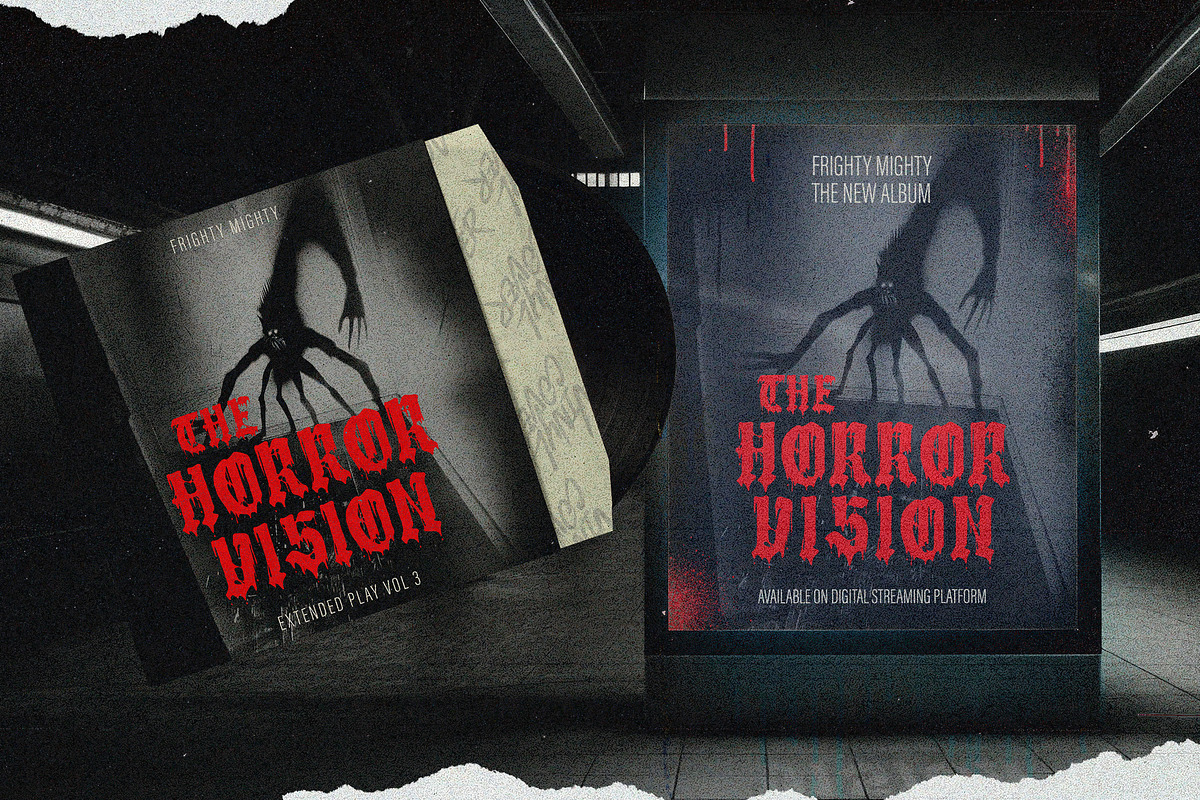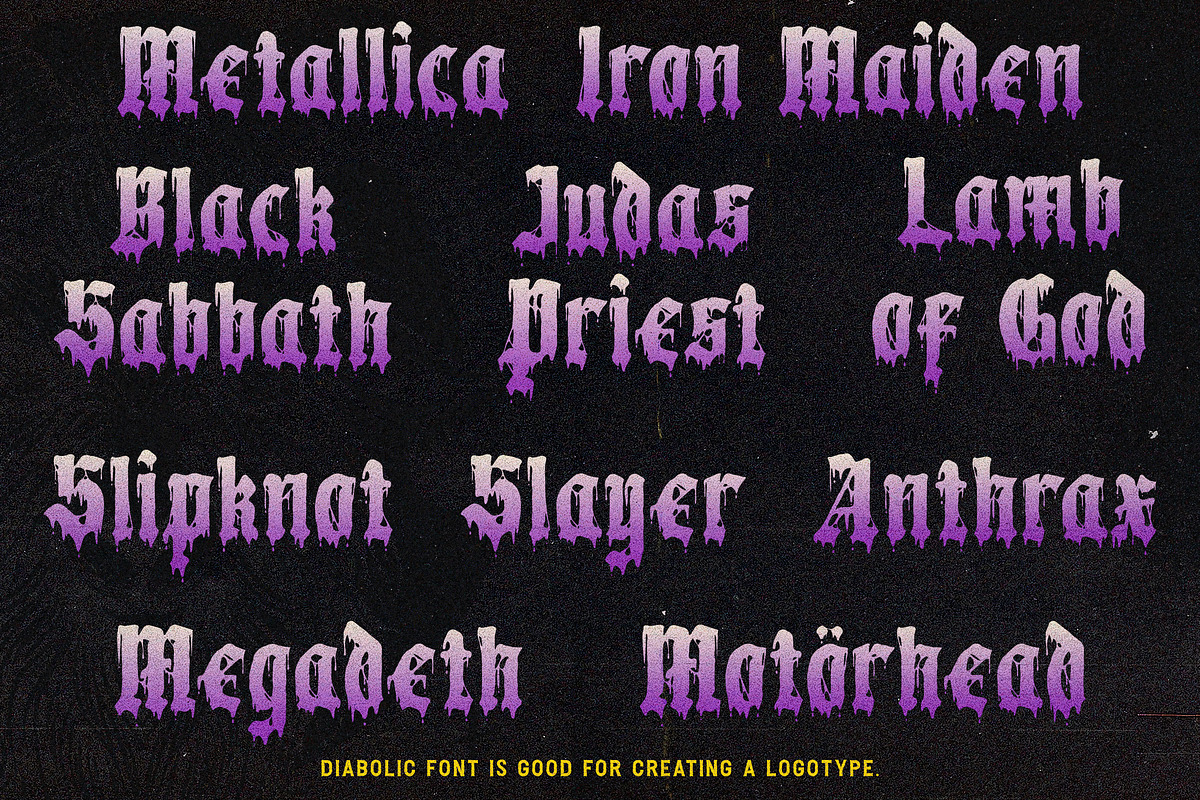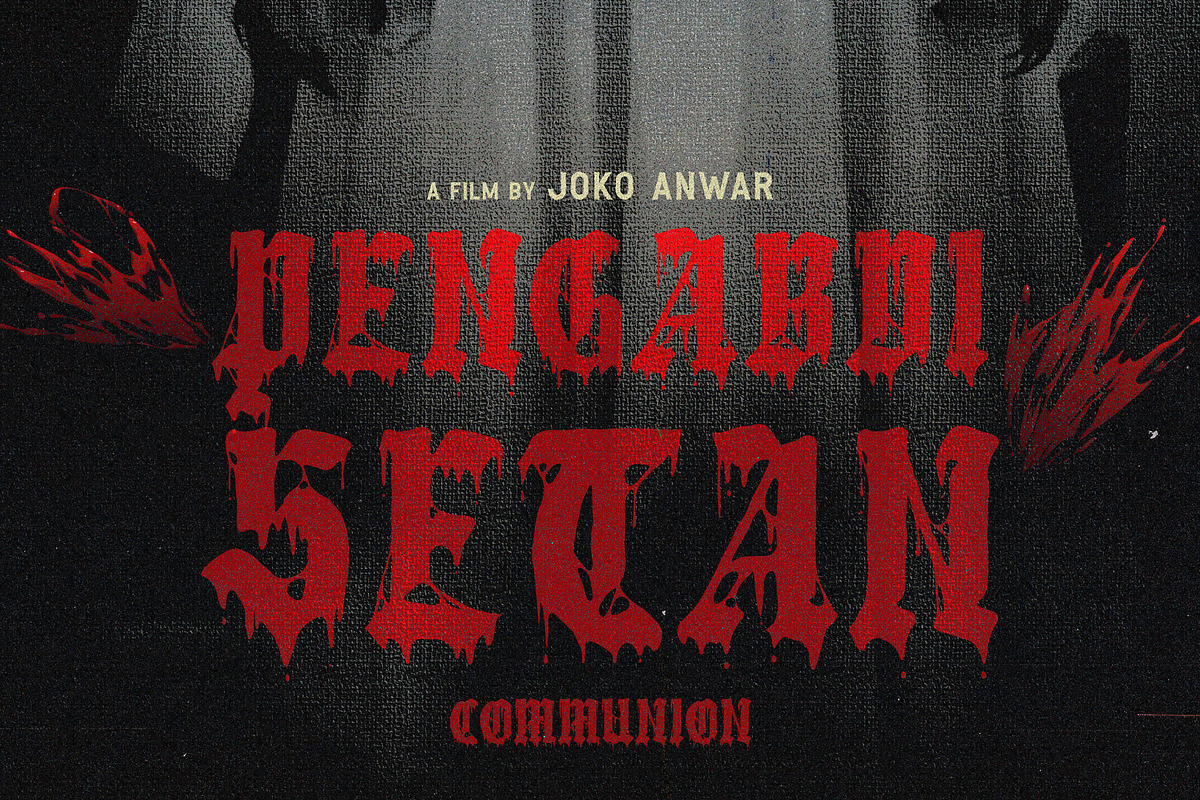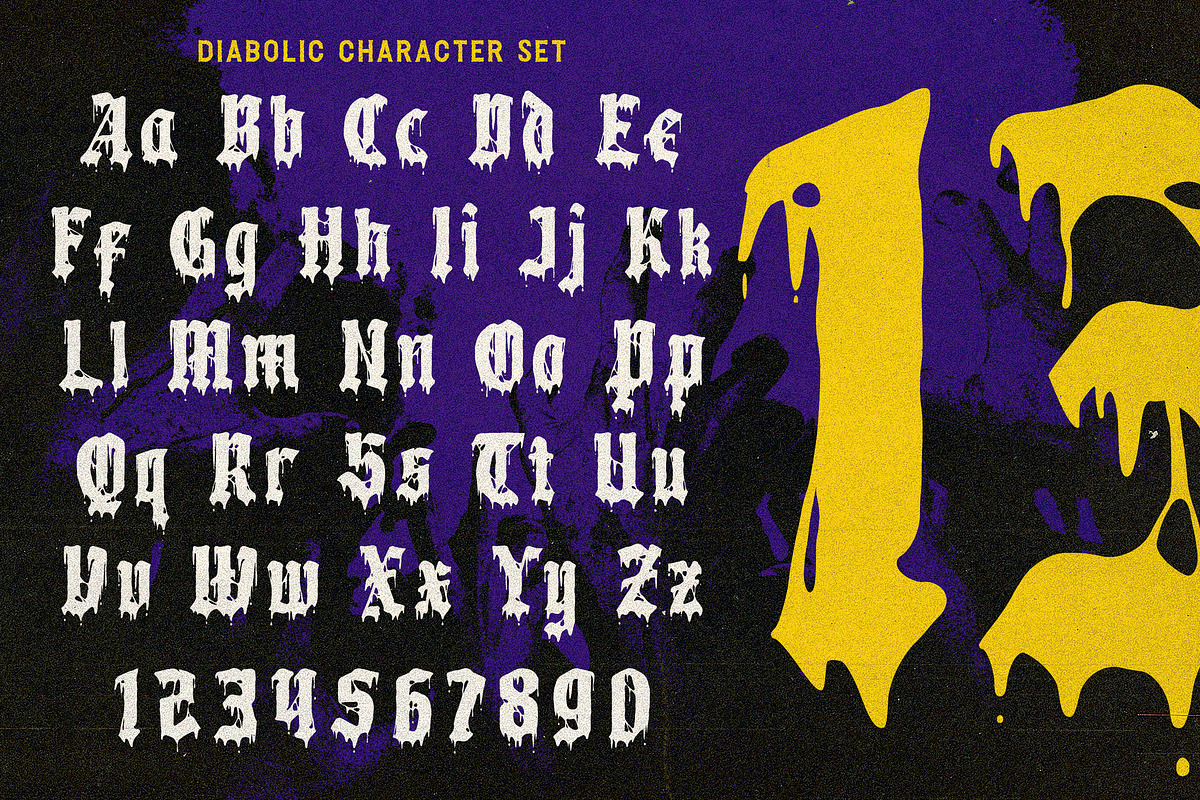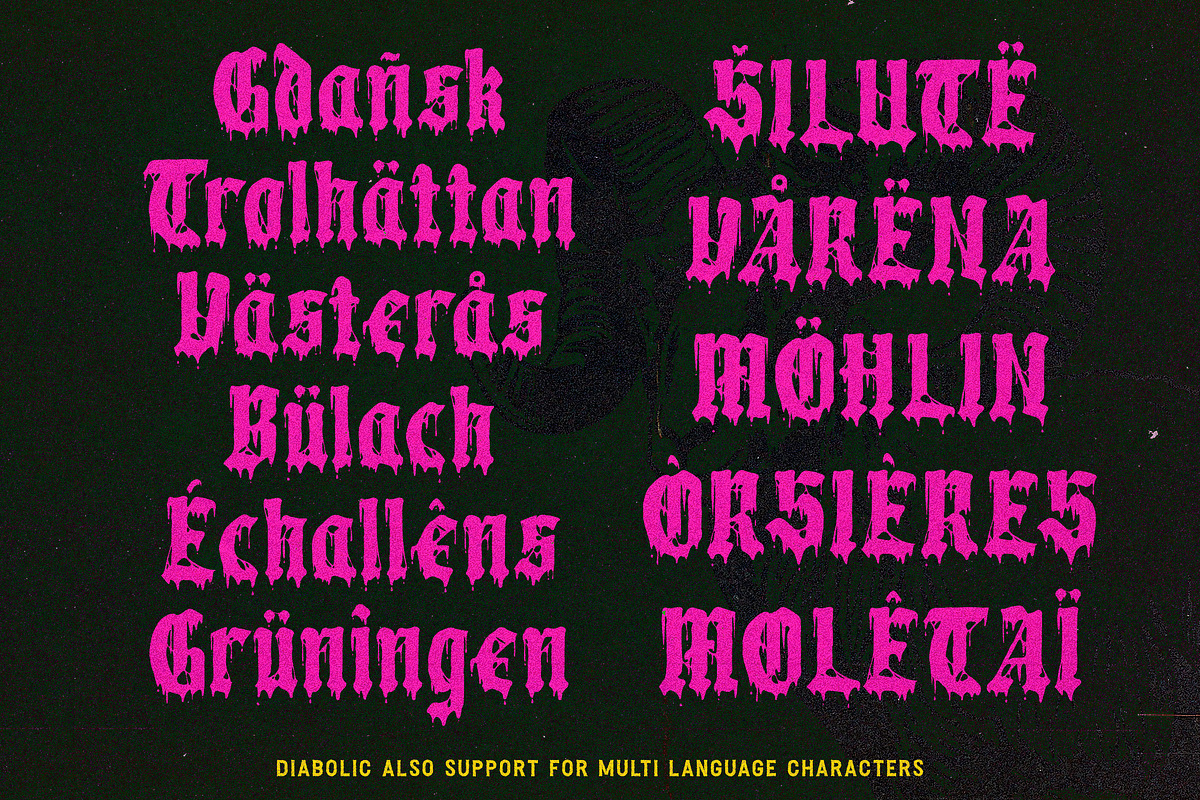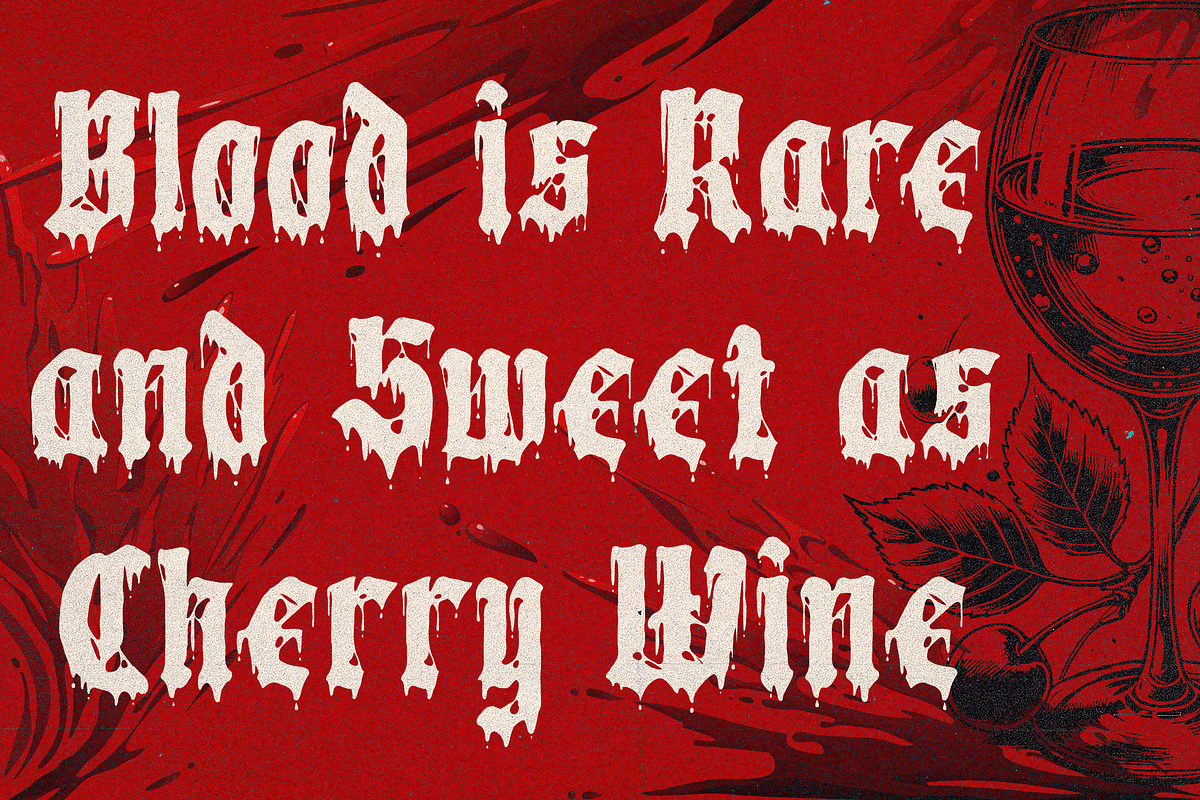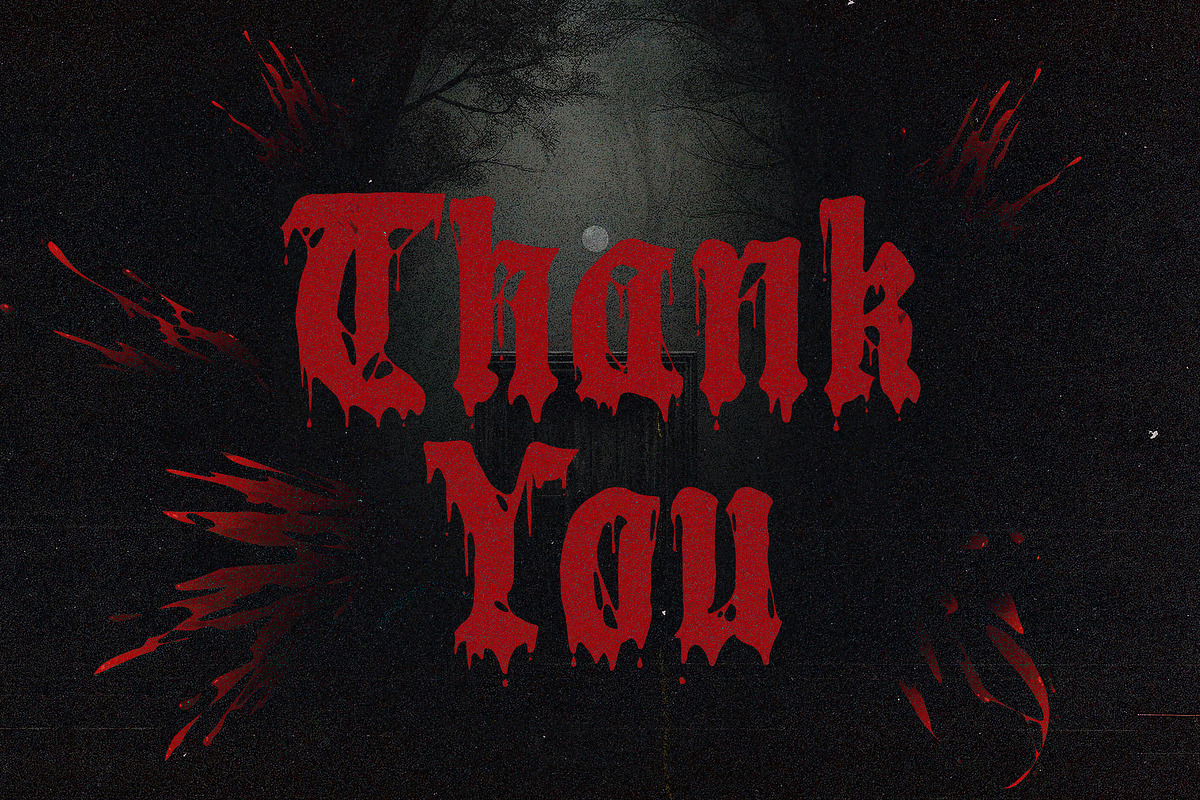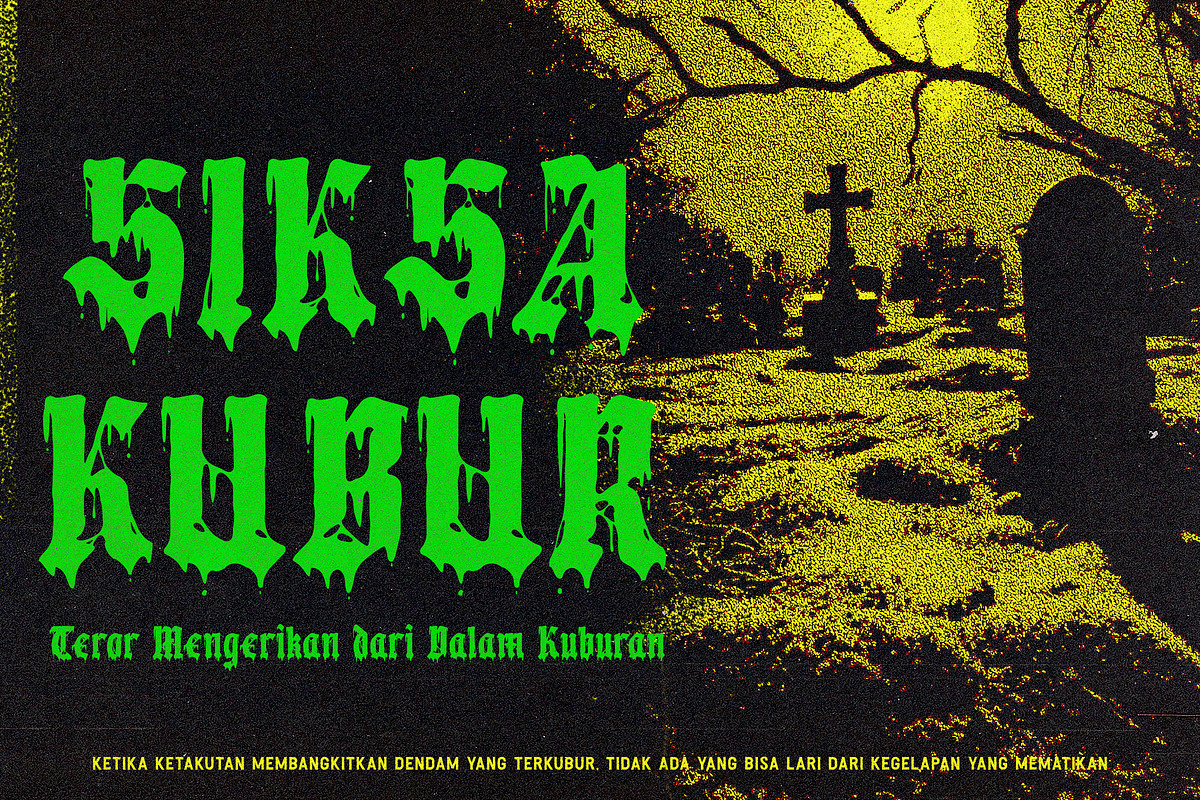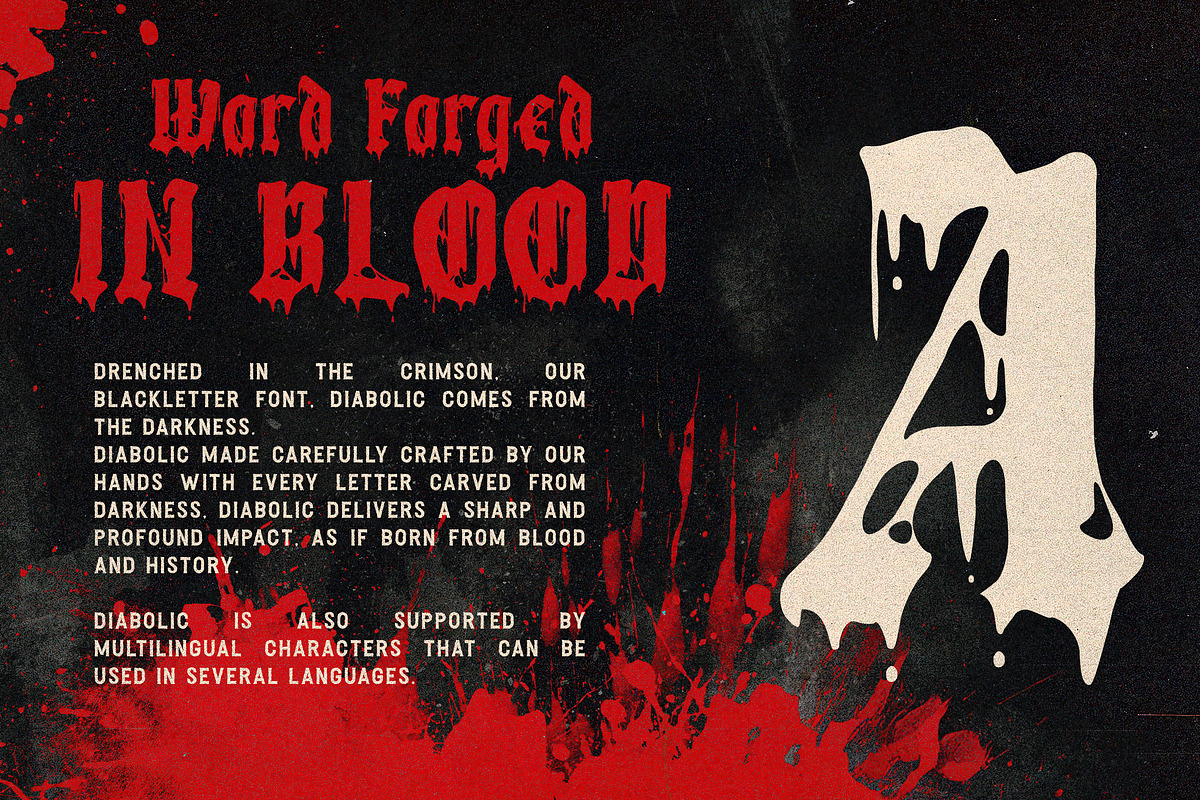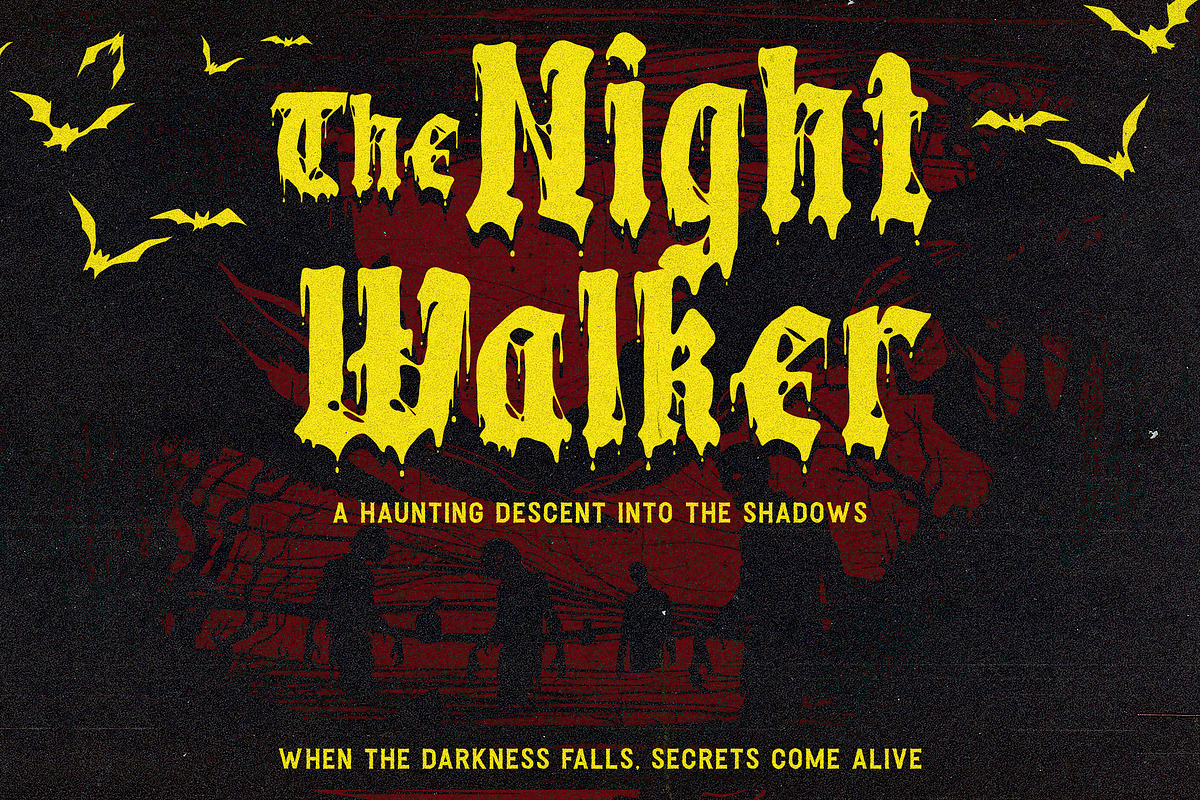
Diabolic - Blackletter Display Font
Drenched in the crimson, let's introduce our blackletter font, Diabolic comes from the darkness. Diabolic carefully crafted by our hands with every letter carved from darkness, delivers a sharp and profound impact, as if born from blood and history.
Inspired by the Fraktur manuscript and the bloody touch, this typeface exudes a haunting presence, Let each word become a symbol of power and mystery.
Diabolic is also supported by multilingual characters that can be used in several languages.
Diabolic is very suitable for use in making posters, merchandise, logos, tattoos, labels, packaging, and album covers.